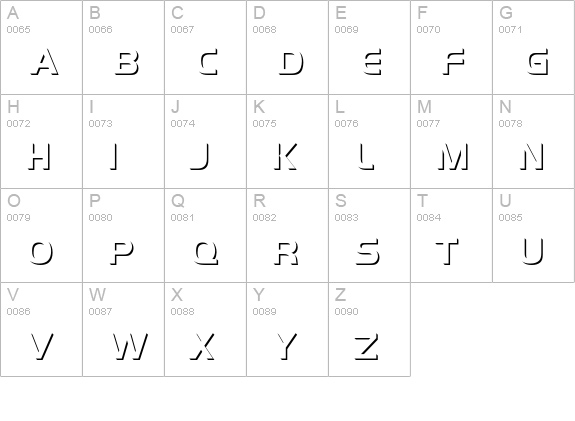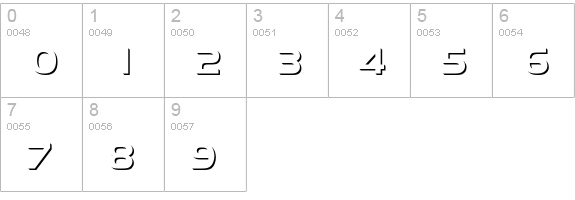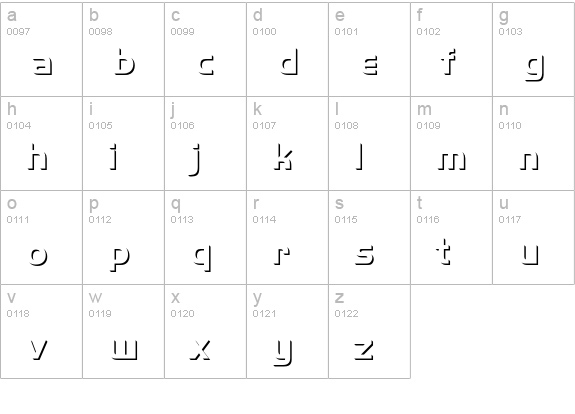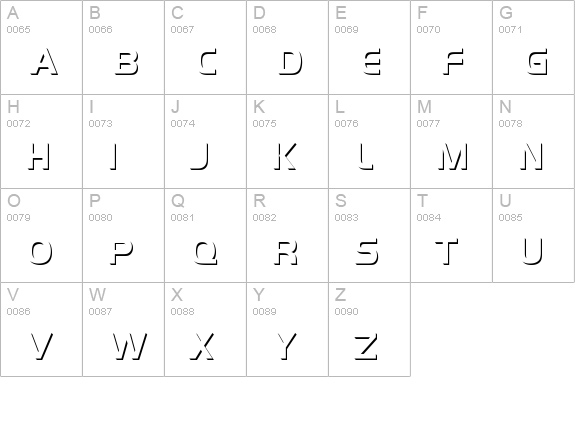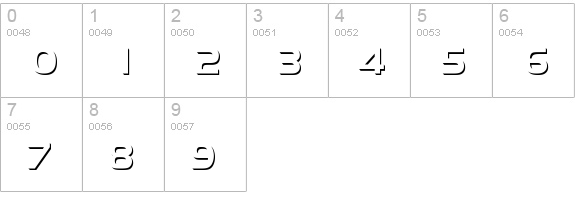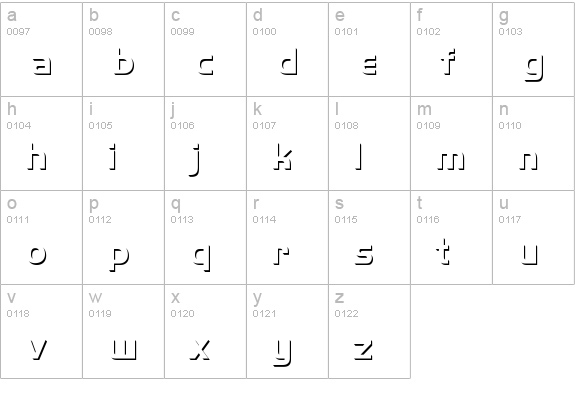
Handel Gothic Only Shadow D Bold Font Details
Handel Gothic Only Shadow D Bold is a strong, high-contrast variant in the Handel typeface family \xE2\x80\x94 well suited to headlines, attention-grabbing titles, and strong calls-to-action.
Handel Gothic Only Shadow D Bold is a striking and bold font that exudes a sense of power and sophistication. With its sharp and angular design, this font commands attention and makes a strong visual impact. The shadow effect adds depth and dimension to each letter, creating a visually captivating composition. This font is perfect for a wide range of design projects, from modern and edgy to sleek and professional. It can be used in various mediums, such as logos, headlines, posters, and branding materials, to create a bold and memorable impression. Whether you are designing for print or digital platforms, Handel Gothic Only Shadow D Bold will undoubtedly enhance your work and leave a lasting impression. One of the best things about Handel Gothic Only Shadow D Bold is that it is freely available to download at FontsMarket.com. This means that you can easily access and incorporate this stunning font into your designs without any hassle. FontsMarket.com offers a wide range of fonts, and Handel Gothic Only Shadow D Bold is just one of the many amazing options available. So, if you are looking for a font that combines strength, elegance, and versatility, Handel Gothic Only Shadow D Bold is the perfect choice. Download it for free at FontsMarket.com and elevate your designs to a whole new level of visual appeal.